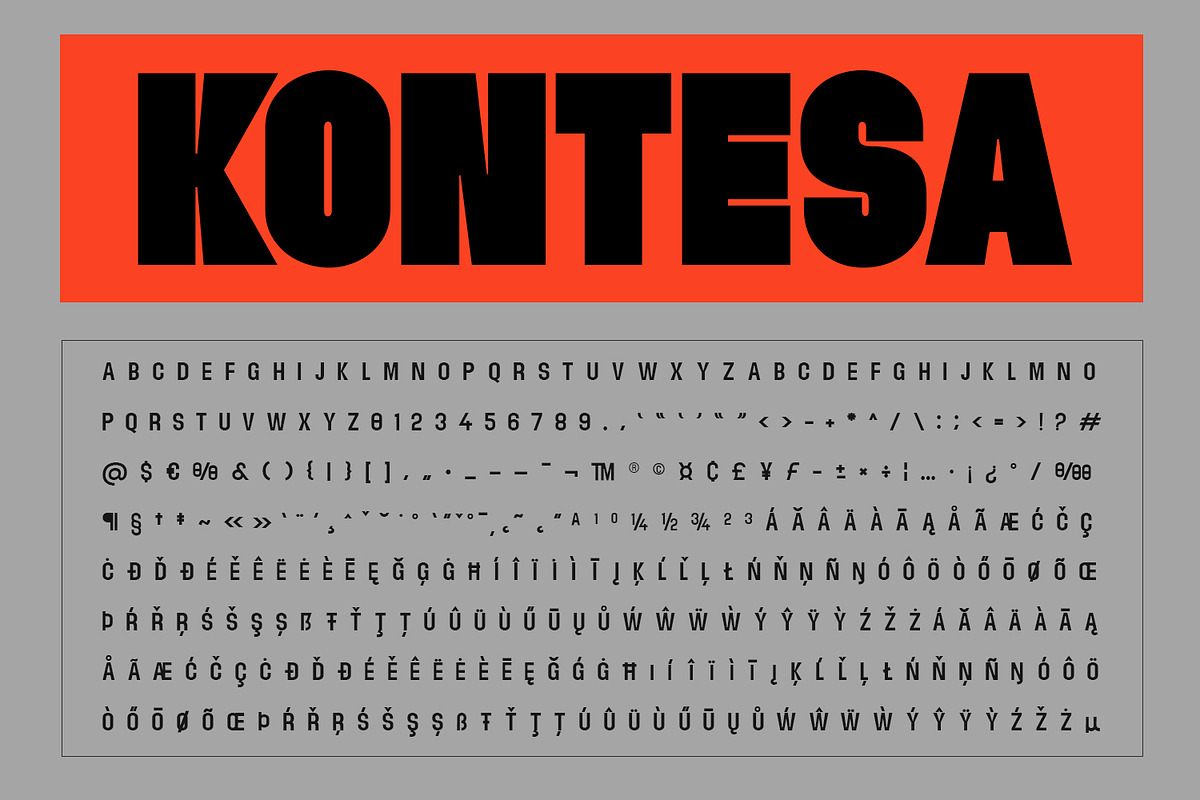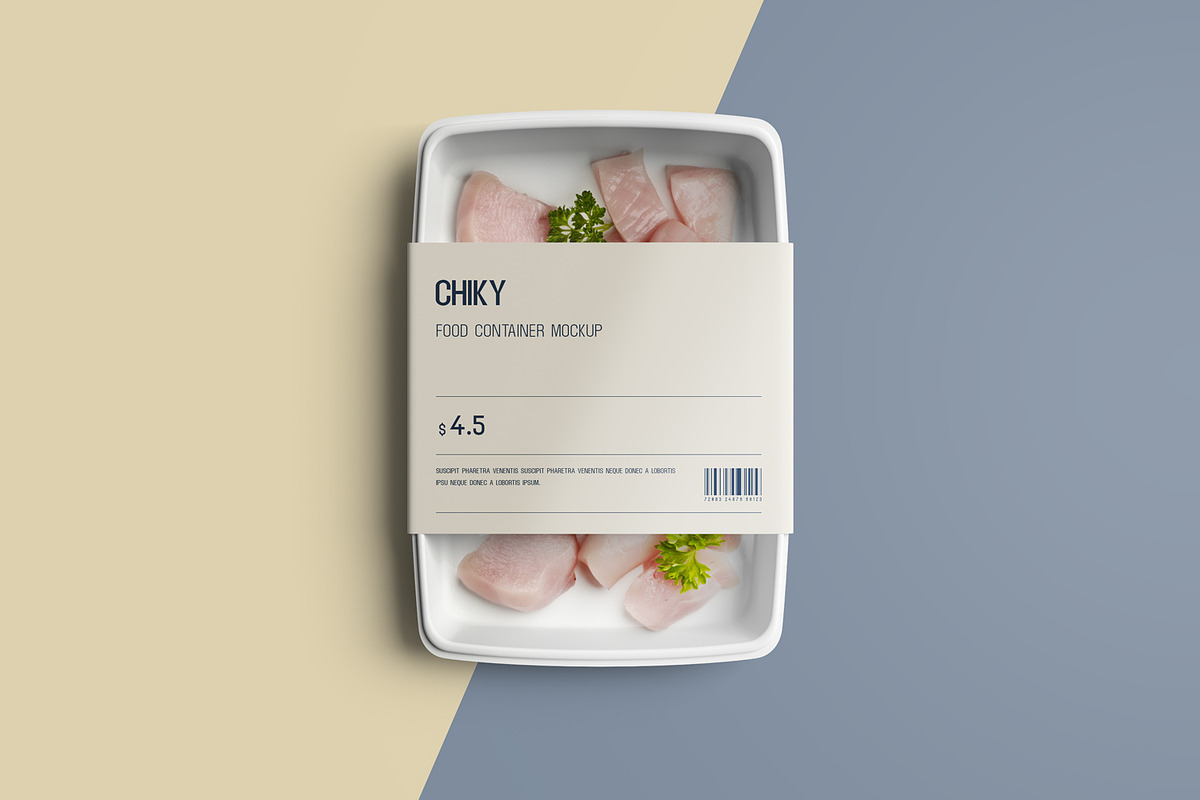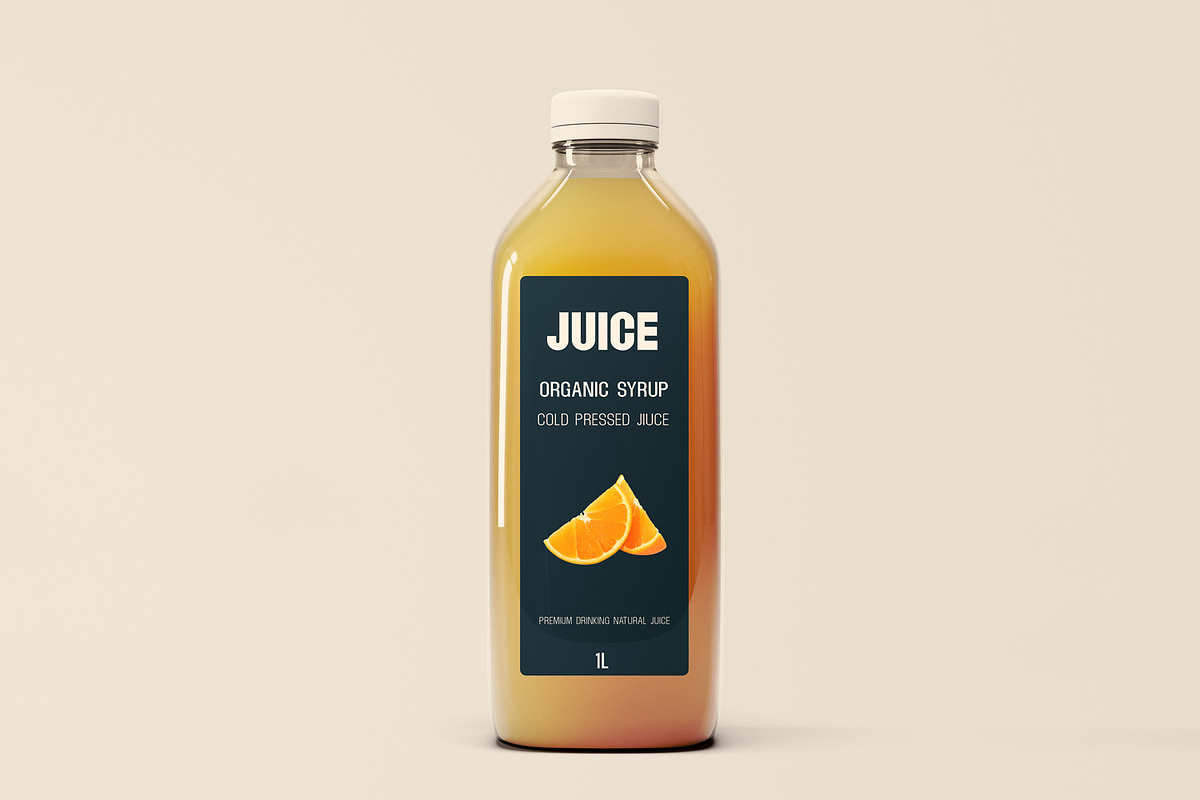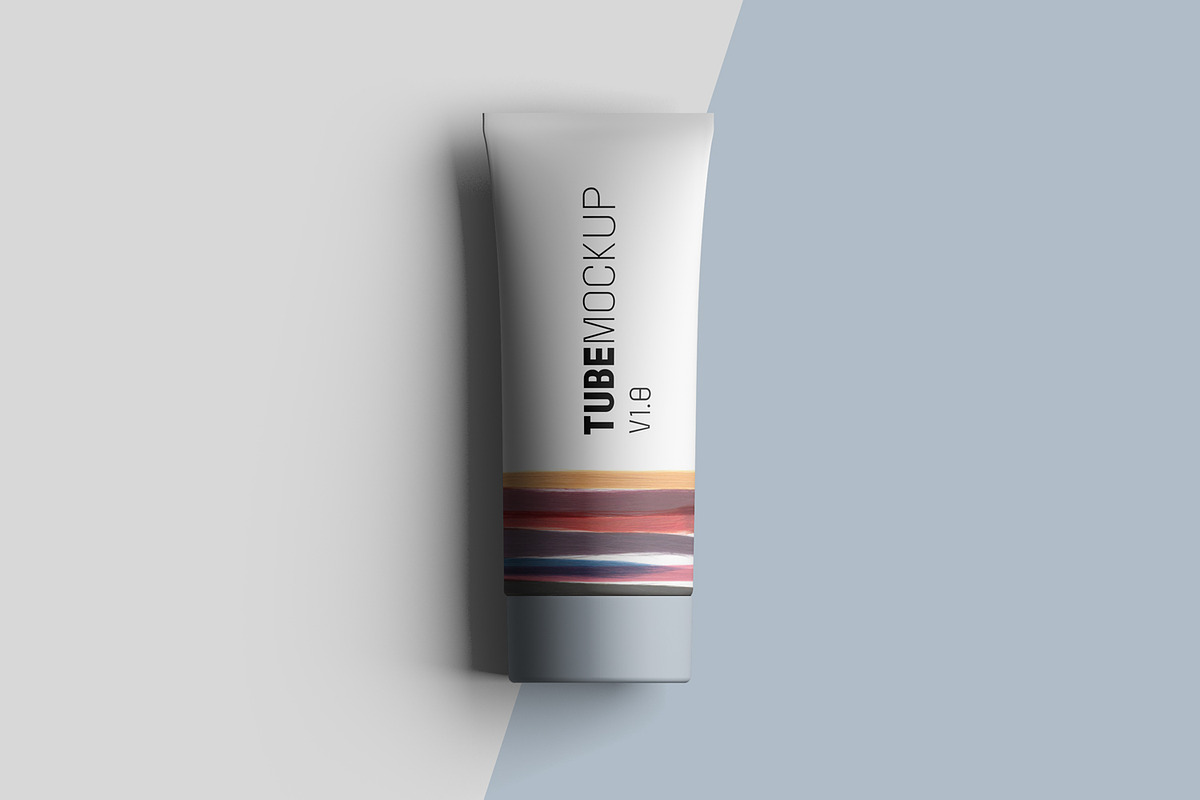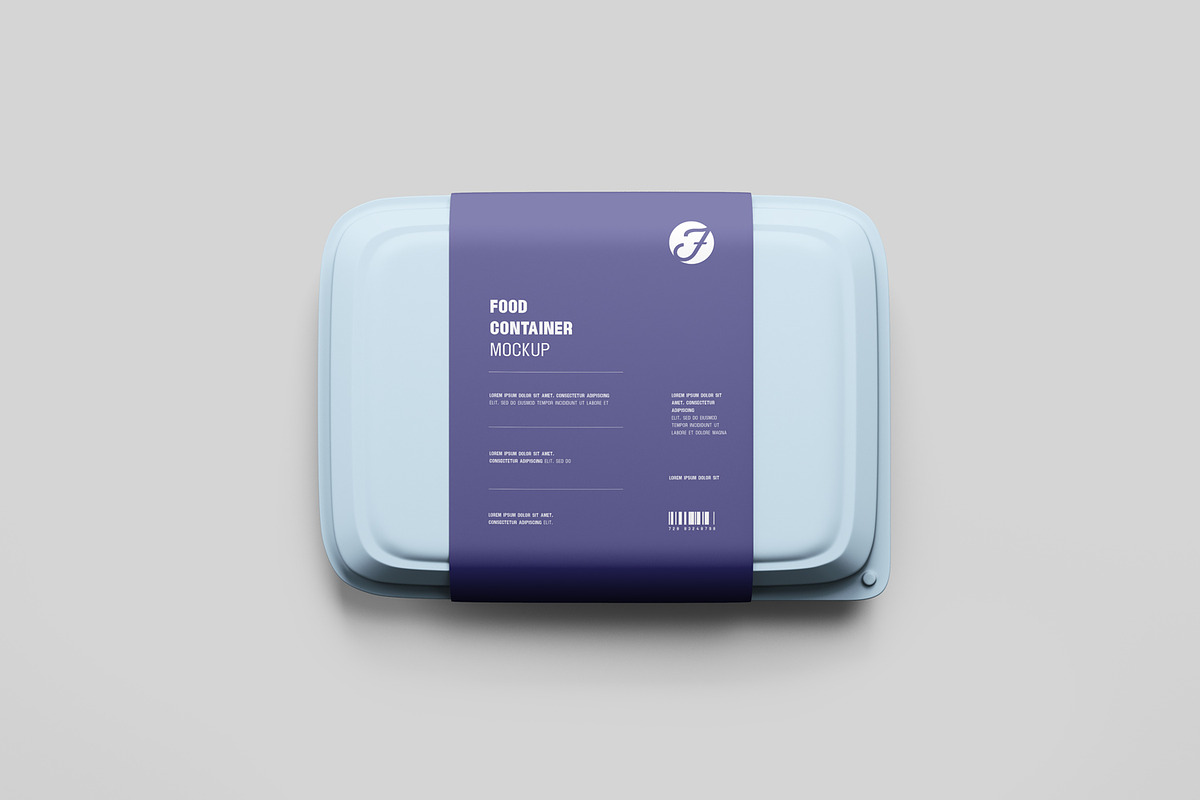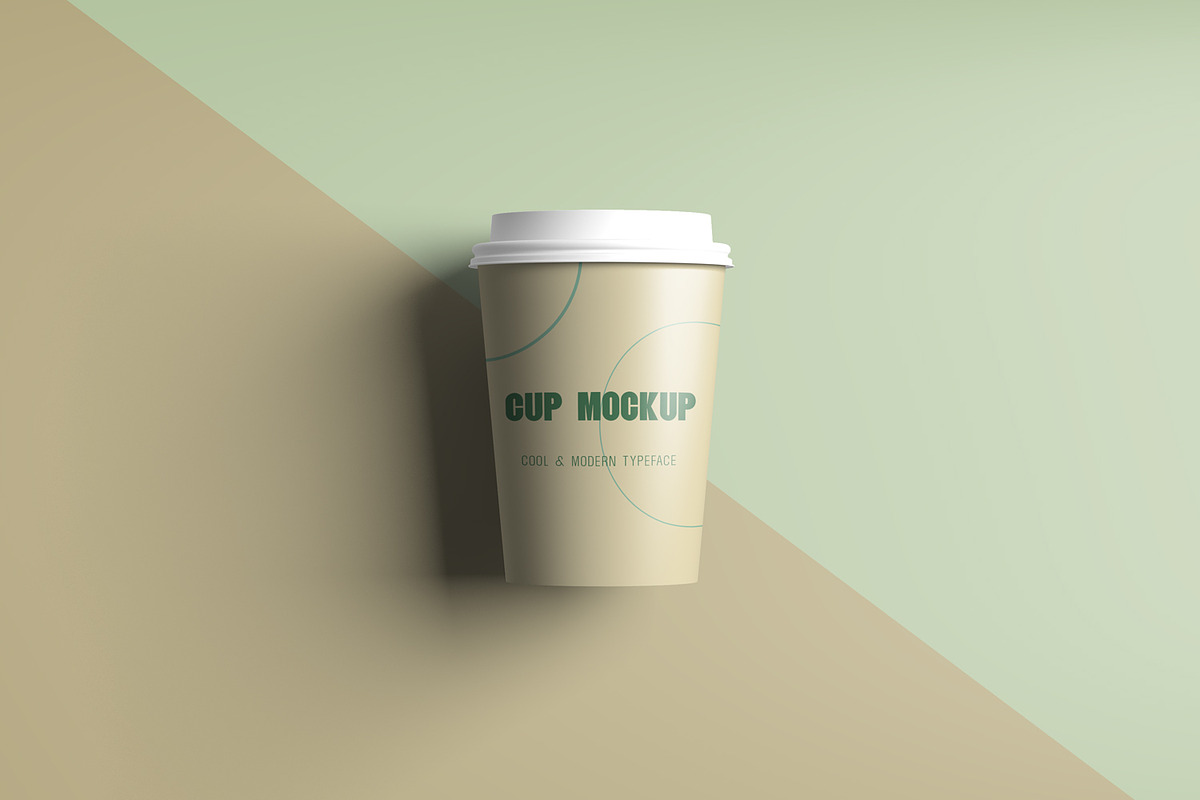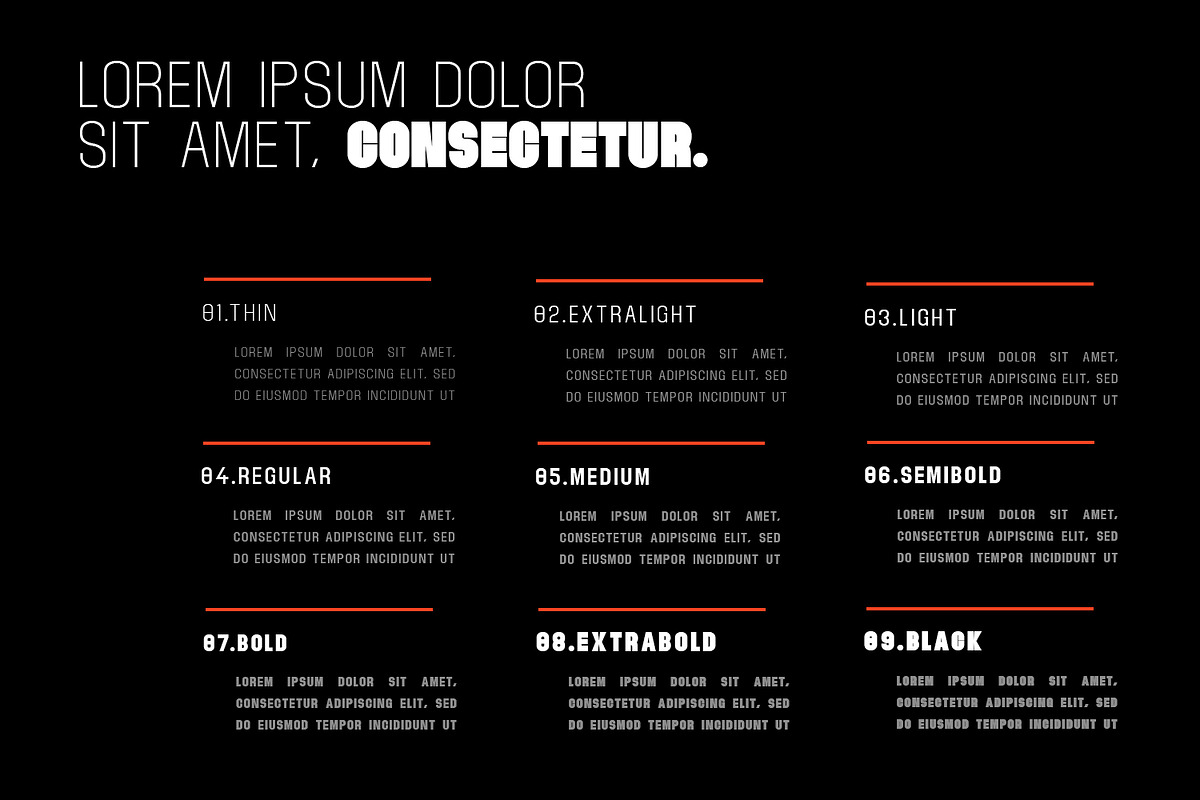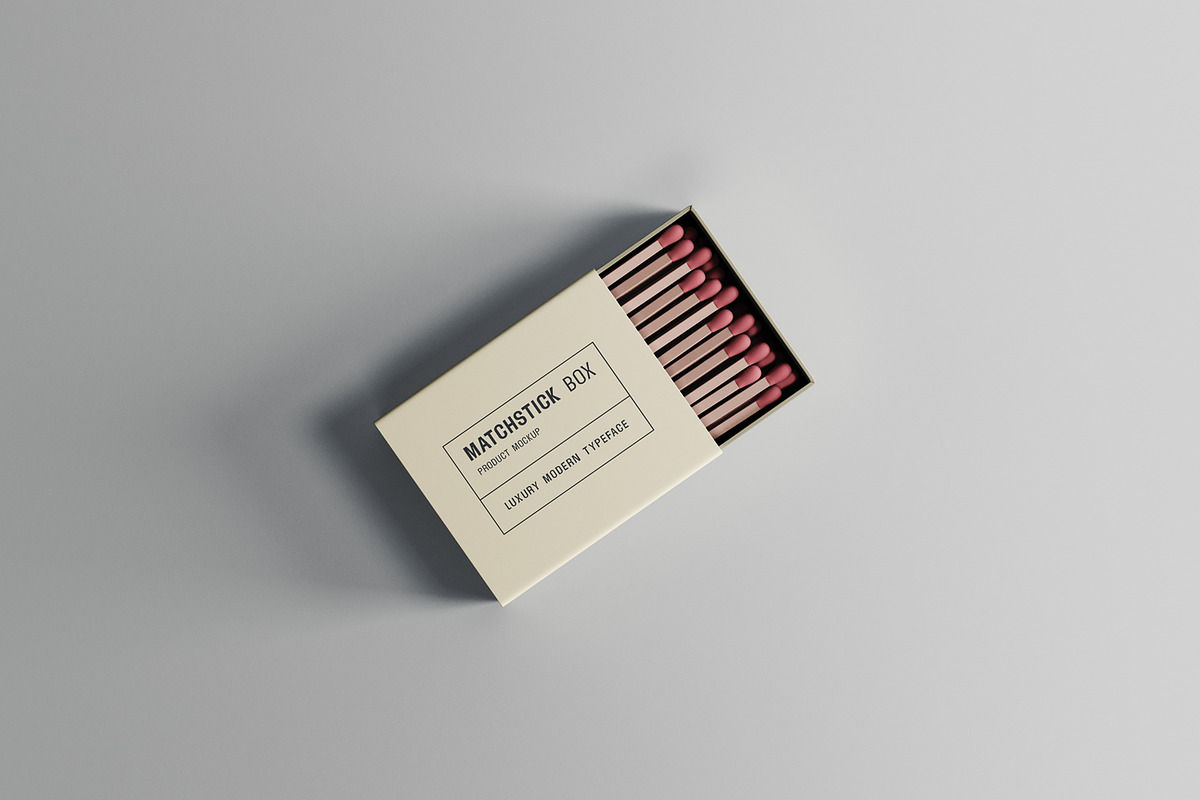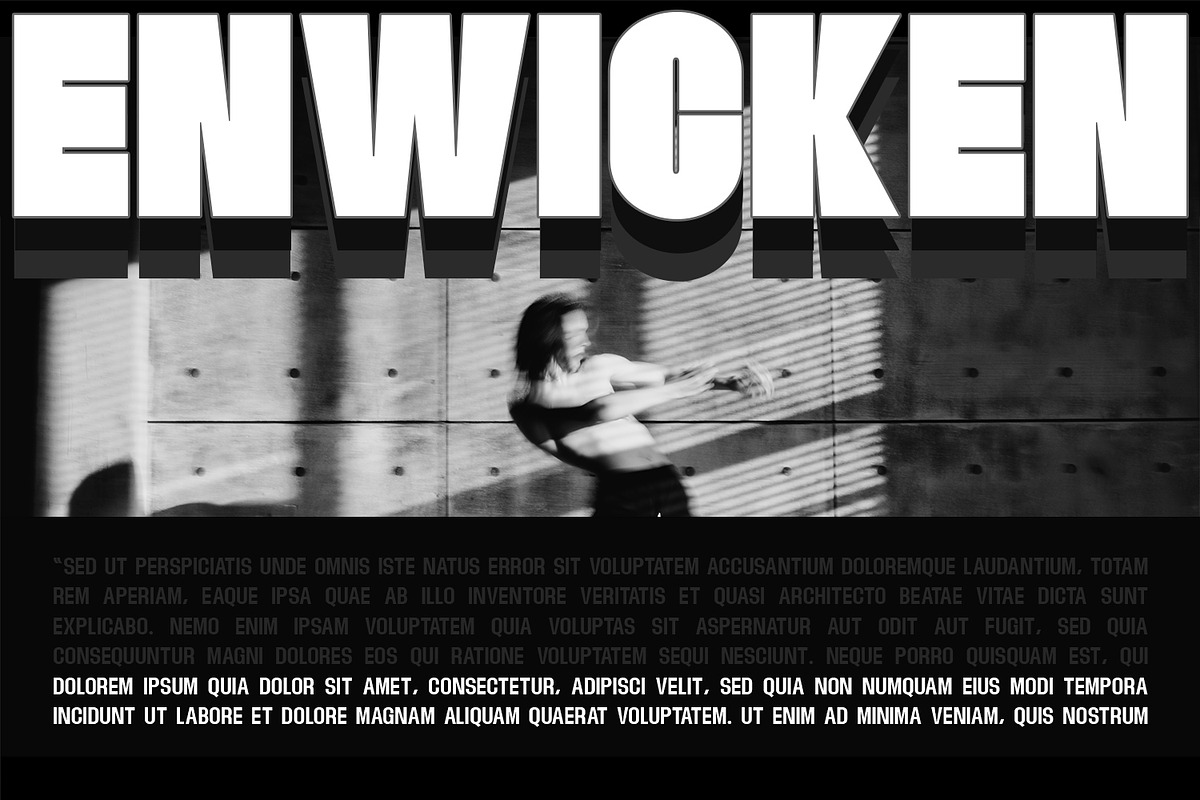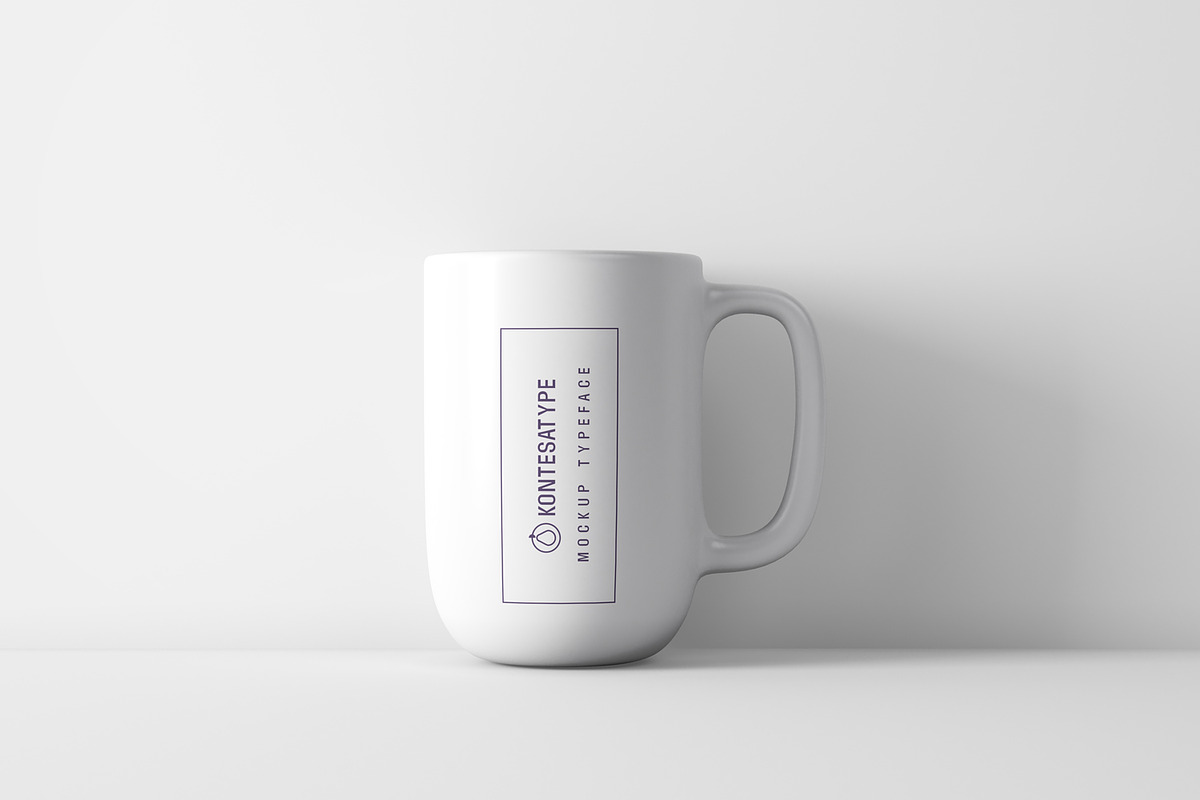
Kontesa Display Typeface
Kontesa Display is a Brand New Elegant Typeface with a powerful font family. It has a dependable and uncompromising style, with controlled letterforms and modern touches. It looks amazing in logos, magazines, and movies . Kontesa Font would be perfect for branding, headlines, Captions, paragraph, and posters . The various weights allow you to experiment with a wide range of applications. It's created to make an impression without sacrificing its beauty and readability. It's shown a clean, minimalist, warmth, quirky, yet still purposed to be versatile
The Typeface includes Nine Weights - Thin, ExtraLight, Light, Regular, Medium, SemiBold, Bold, ExtraBold, and Black
- All offer wide language support
- upper cases only
- numerals and extended punctuation.